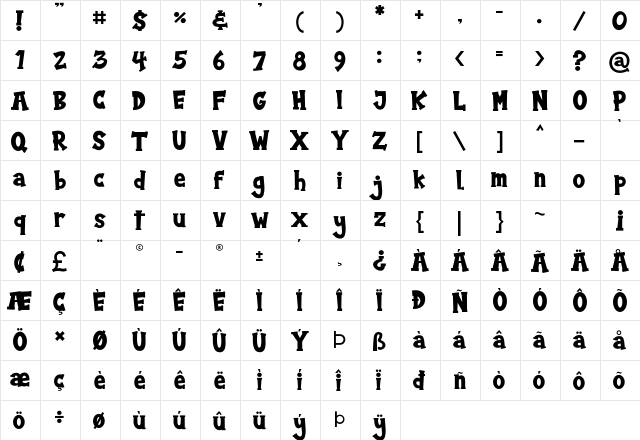
Pirate Kids Regular
| Designer | Fachranheit 2020 |
Design Context for Pirate Kids Typeface
Pirate Kids trades formality for fun, with bouncy, characterful letterforms that bring warmth and energy to any project.
Font Pairing: Pairs well with a rounded or humanist sans for body copy, maintaining the friendly tone without relying on Pirate Kids to carry extended reading.
Pro Tip: Avoid using Pirate Kids for long passages of text — it works best for headlines, labels, and short calls to action.